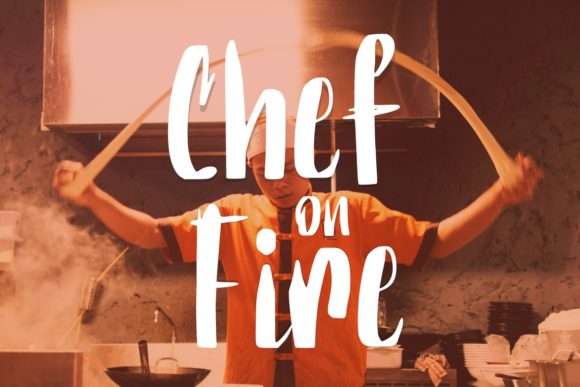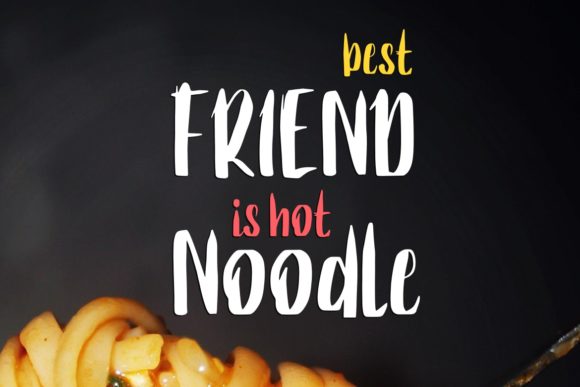
Ramen Font
db-ku.com - Script & Handwritten -- Ramen is a delicious handwritten font. It will be the perfect choice for a wide variety of projects such as logos, posters, t-shirt & mug designs and whatever else.